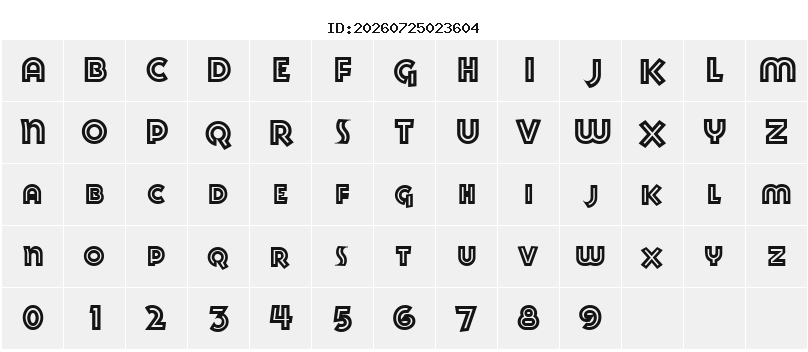
GoyaInline Preview
• Font Name: GoyaInline
• Font ID: Macromedia Fontographer 4.1.3 GoyaInline
• Full Font Name: GoyaInline
• Version: Macromedia Fontographer 4.1.3 4/16/05
• PostScript Name: GoyaInline
• Copyright: GOYA computer fonts v2.0 © 2000, 2005 Harold Lohner • HLohner@aol.com • www.haroldsfonts.com. Inspired by the logo of the GOYA® food products company.
About GoyaInline.ttf
GoyaInline.ttf is a modern, elegant sans-serif font designed for ultimate readability and visual harmony. Perfect for branding, headlines, web design, and print materials.